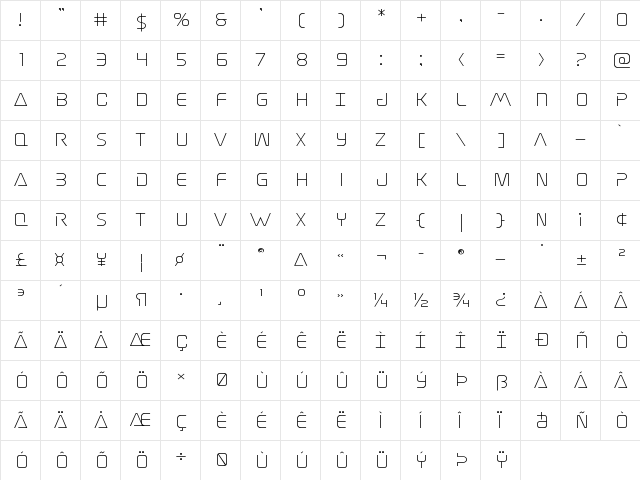
Elite Danger Expanded Expanded
Design Context for Elite Danger Expanded Typeface
Elite Danger Expanded offers clean, dependable letterforms without strong stylistic allegiance, making it a practical choice for designers who need flexibility.
Pro Tip: Use Elite Danger Expanded in both headline and body roles to test its range before committing to a single application.